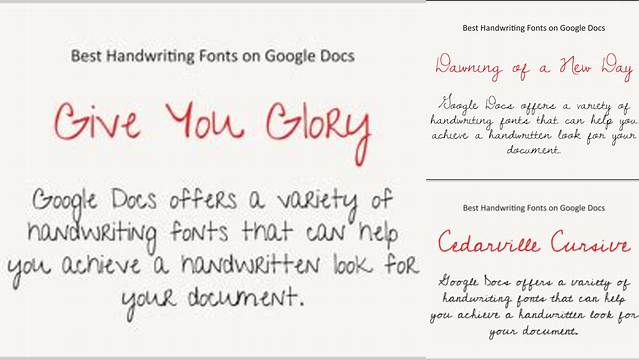
Handwriting Fonts In Google Docs: Add A Personal Touch
Hey guys! Ever wanted to add a personal touch to your Google Docs? Using handwriting fonts is a fantastic way to do just that. Whether you're crafting a heartfelt letter, designing an eye-catching presentation, or simply want your document to stand out, incorporating a handwriting font can make all the difference. In this guide, we'll dive deep into the world of handwriting fonts in Google Docs, exploring how to find, add, and effectively use them to enhance your documents. We’ll cover everything from the basics of adding new fonts to troubleshooting common issues and even suggesting some of the best handwriting fonts available. So, let's get started and transform your Google Docs from plain text to personalized masterpieces!
Why Use Handwriting Fonts?
Before we jump into the how, let's talk about the why. Why should you even bother with handwriting fonts in Google Docs? Well, there are several compelling reasons. Firstly, handwriting fonts add a personal and informal touch to your documents. In a world dominated by digital communication, a handwritten-style font can bring a sense of warmth and authenticity. This is particularly useful for personal correspondence like thank-you notes, invitations, or letters to loved ones. Imagine receiving a birthday card that looks like it was genuinely handwritten – it feels much more special than a generic, typed message, right? Secondly, handwriting fonts can significantly enhance the visual appeal of your documents. They break the monotony of standard fonts like Arial or Times New Roman and make your content more engaging. This is especially beneficial for presentations, posters, and creative projects where visual impact is crucial. A well-chosen handwriting font can instantly grab attention and convey a specific mood or tone, making your message more memorable. For instance, a whimsical script font can add a playful vibe to a children's book, while a more elegant cursive font can lend a touch of sophistication to an invitation. Thirdly, using handwriting fonts can help you create a unique brand identity. If you're a small business owner or a freelancer, consistency in branding is key. Incorporating a signature handwriting font into your documents and marketing materials can help you establish a distinct and recognizable brand. Think about it – many famous brands use unique fonts to create a lasting impression, and a handwriting font can be a powerful tool in your branding arsenal. Finally, let's not forget the fun factor! Experimenting with different handwriting fonts can be a creative and enjoyable way to spice up your documents. It's like adding a little bit of your personality to your work, making the whole process more engaging and rewarding. So, whether you're aiming for a personal touch, visual appeal, brand identity, or simply want to have some fun, handwriting fonts are a fantastic option to explore in Google Docs.
Top Handwriting Fonts for Google Docs
Now that you know how to add handwriting fonts to Google Docs, the next question is: which ones should you use? With so many options available, it can be a bit overwhelming to choose the perfect font for your project. But don't worry, we've got you covered! Here are some of the top handwriting fonts for Google Docs, categorized by style and usage, to help you find the perfect match.
Casual and Playful Fonts
If you're looking for a font that's fun, friendly, and approachable, these casual and playful options are a great choice. These fonts are perfect for informal documents, invitations, and creative projects where you want to convey a sense of warmth and personality. One standout in this category is Patrick Hand. This font has a relaxed, handwritten feel that's perfect for adding a personal touch to your documents. It's legible and easy to read, making it a great option for body text as well as headings. Another fantastic choice is Permanent Marker. As the name suggests, this font looks like it was written with a bold marker, giving it a bold and energetic vibe. It's ideal for headings, posters, and anything that needs to grab attention. For something a bit more whimsical, consider Indie Flower. This font has a quirky, hand-drawn style that's perfect for children's books, playful designs, and anything that needs a touch of fun. Its irregular lines and bouncy characters give it a unique and charming appeal. If you're aiming for a slightly more polished yet still casual look, try Coming Soon. This font has a clean, monoline style that's easy to read and works well in various contexts. It's a great option for both headings and body text, making it a versatile choice for many projects. Lastly, don't overlook * школьная тетрадь ( школьная тетрадь )*. This font captures the essence of handwritten notes with its slightly messy and informal style. It’s perfect for projects that aim for an authentic, personal touch, such as letters or creative writing pieces.
Elegant and Formal Fonts
For projects that require a touch of sophistication and elegance, such as invitations, certificates, or formal letters, these handwriting fonts are sure to impress. These fonts often feature flowing curves and graceful lines, conveying a sense of refinement and class. One of the most popular choices in this category is Kalam. Kalam offers a balanced mix of readability and elegance, making it suitable for both body text and headings. Its clean lines and gentle curves add a sophisticated touch without sacrificing clarity. Another excellent option is Alex Brush. Alex Brush is a classic cursive font with beautiful, flowing strokes that evoke a sense of traditional handwriting. It's perfect for adding a touch of elegance to invitations, certificates, and other formal documents. If you're looking for a font with a vintage feel, try Great Vibes. This font has a romantic, old-fashioned style that's perfect for wedding invitations, vintage-inspired designs, and anything that needs a touch of nostalgia. Its elegant flourishes and graceful curves make it a standout choice. For a more modern take on elegant handwriting, consider Parisienne. Parisienne offers a chic, stylish aesthetic that’s perfect for fashion-related documents, branding materials, or any project where a touch of Parisian flair is desired. Its refined and flowing letters bring a touch of sophistication to any text. Lastly, Marck Script is an excellent choice for adding a personal yet polished touch. With its flowing lines and elegant letterforms, it strikes a balance between formality and approachability, making it versatile for a variety of formal contexts.
Unique and Creative Fonts
If you're looking for handwriting fonts that are a little out of the ordinary, these unique and creative options will help your documents stand out from the crowd. These fonts are perfect for projects where you want to make a statement and showcase your creativity. Amatic SC is a fantastic choice if you're after a condensed, hand-drawn font. Its tall, narrow letters make it ideal for headings, posters, and other designs where space is limited. The slightly rough texture gives it a handmade feel that adds character and charm. For a more whimsical and artistic touch, Permanent Marker is an excellent option. This font gives the impression of being written with a thick marker, making it bold and attention-grabbing. It’s perfect for posters, flyers, and other designs where you want to make a strong visual impact. If you need a font that is both playful and legible, consider Covered By Your Grace. This font has a childlike quality that's perfect for projects targeting younger audiences. Its simple, rounded letters are easy to read, making it suitable for both body text and headings. For a font that offers a bit of vintage flair, Crafty Girls is a great choice. This font has a hand-stitched appearance, making it perfect for craft-related projects, scrapbooking, or anything that needs a touch of homespun charm. The unique texture gives it a cozy and inviting feel. Lastly, * школьная тетрадь ( школьная тетрадь )* adds a touch of authenticity with its imitation of natural handwriting. This font is perfect for adding a personal and genuine feel to your documents, making them feel more relatable and engaging.
Tips for Using Handwriting Fonts Effectively
So, you've got your handwriting fonts all set up in Google Docs – awesome! But before you go wild and start using them everywhere, let's talk about how to use them effectively. Just like any design element, handwriting fonts should be used thoughtfully and strategically to achieve the best results. Here are some tips to keep in mind: First and foremost, readability is key. While handwriting fonts can add a personal touch, it's crucial to ensure that your text remains easy to read. Avoid using overly decorative or intricate fonts for large blocks of text, as they can strain the eyes and make your message difficult to understand. Stick to simpler, more legible handwriting fonts for body text, and save the fancier ones for headings or short quotes. Think about contrast, too. Pairing a handwriting font with a more traditional font can create a visually appealing contrast and make your document more engaging. For example, you might use a bold handwriting font for headings and a classic serif font like Garamond or Times New Roman for body text. This combination can add personality without sacrificing readability. It's also a good idea to consider the context and tone of your document. Different handwriting fonts convey different moods and styles, so choose a font that aligns with the overall message you're trying to communicate. A playful, casual font might be perfect for a birthday invitation, but it wouldn't be suitable for a formal business report. Similarly, an elegant cursive font might be great for a wedding announcement but would feel out of place in a technical manual. Use handwriting fonts sparingly. Overusing them can make your document look cluttered and overwhelming. As a general rule, it's best to limit yourself to one or two handwriting fonts per document. Use them strategically to highlight key elements or add emphasis, rather than applying them to every single piece of text. Pay attention to sizing and spacing. Handwriting fonts often have unique characteristics that require adjustments in sizing and spacing. Make sure your font size is appropriate for the context, and adjust the line spacing and letter spacing as needed to ensure optimal readability. Sometimes, a slightly larger font size or increased spacing can make a handwriting font much easier to read. Don't forget to test it out! Before finalizing your document, take a step back and review it from a reader's perspective. Is the handwriting font easy to read? Does it complement the overall design? Does it convey the right tone and message? If anything feels off, don't hesitate to make adjustments. By following these tips, you can use handwriting fonts effectively to enhance your Google Docs and create visually appealing, personalized documents that truly stand out.
Even with the best planning, you might run into some hiccups when using handwriting fonts in Google Docs. But don't worry, most common issues are easily resolved. Let's walk through some typical problems and how to fix them. One common issue is that the font doesn't display correctly. Sometimes, a font might appear differently in Google Docs than it does in the font library preview. This can be due to a variety of factors, such as browser compatibility or font rendering issues. If you encounter this problem, try clearing your browser's cache and cookies. This can often resolve display issues by refreshing the browser's data. Another solution is to try a different browser. If the font displays correctly in another browser, the issue might be specific to your original browser. If clearing your cache and cookies or switching browsers doesn't work, there might be an issue with the font file itself. In rare cases, a font file can be corrupted or have compatibility issues with Google Docs. If this is the case, try selecting a different font or finding an alternative version of the font from a reputable source. Sometimes, fonts may appear blurry or pixelated, especially at larger sizes. This can be a common issue with some handwriting fonts, particularly those with intricate details or thin lines. To improve the font's appearance, try increasing the font size slightly. This can sometimes smooth out the edges and reduce pixelation. You can also try adjusting the text rendering settings in your browser. Some browsers offer options to optimize text rendering for different display types, which can improve the clarity of fonts. Another potential issue is inconsistent spacing. Handwriting fonts often have unique letterforms and spacing characteristics, which can sometimes lead to inconsistent spacing between letters or words. If you notice this issue, try adjusting the letter spacing or word spacing in Google Docs. You can find these options in the "Format" menu under "Line spacing" and then "Custom spacing." Experiment with different spacing values until you achieve a more balanced and visually appealing result. If a handwriting font is not showing up in the font list, make sure you've added it correctly. Double-check that you've selected the font in the font library and clicked "OK" to add it to your "My fonts" list. If the font still doesn't appear, try refreshing the page. Sometimes, a simple refresh can resolve minor glitches and ensure that the font list is updated correctly. Lastly, consider font compatibility. While Google Docs supports a wide range of fonts, some fonts may not be fully compatible with the platform. If you're experiencing persistent issues with a particular font, it might be best to choose an alternative font that is known to work well in Google Docs. By following these troubleshooting tips, you can overcome common issues and enjoy using handwriting fonts in your Google Docs documents.
So, there you have it, guys! A comprehensive guide to using handwriting fonts in Google Docs. We've covered everything from why you might want to use them, to how to add them, some top font choices, tips for effective use, and even troubleshooting common issues. Hopefully, you're now feeling confident and inspired to start experimenting with handwriting fonts in your own documents. Remember, handwriting fonts can be a fantastic way to add a personal touch, enhance visual appeal, and create a unique brand identity. Whether you're crafting a heartfelt letter, designing an eye-catching presentation, or simply want to make your documents stand out, these fonts can be a powerful tool in your creative arsenal. Just like any design element, the key to using handwriting fonts effectively is to be thoughtful and strategic. Consider the context, tone, and readability of your document, and choose fonts that align with your overall message. Don't be afraid to experiment and try different combinations until you find what works best for you. And remember, readability is paramount, so always prioritize clear and legible fonts, especially for body text. With a little practice and experimentation, you'll be able to master the art of using handwriting fonts in Google Docs and create documents that are both visually stunning and personally meaningful. So go ahead, unleash your creativity, and let your handwriting shine through! Happy writing, guys!